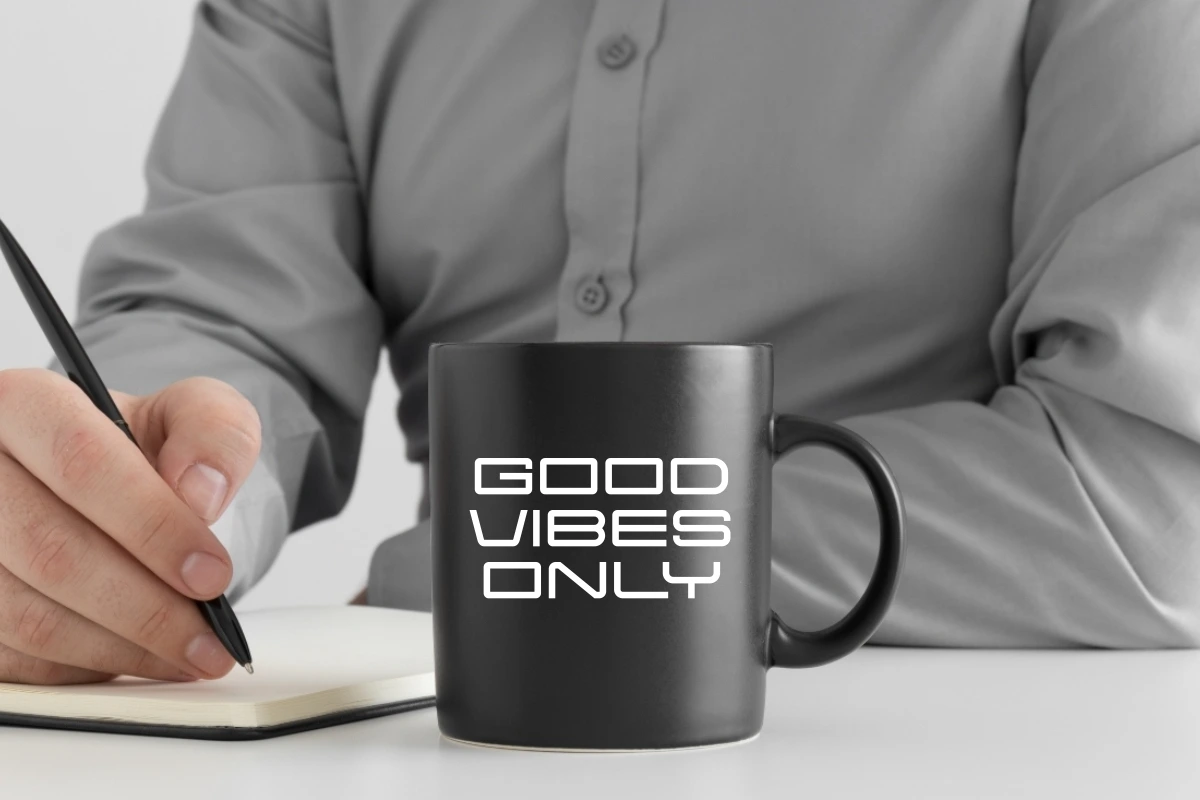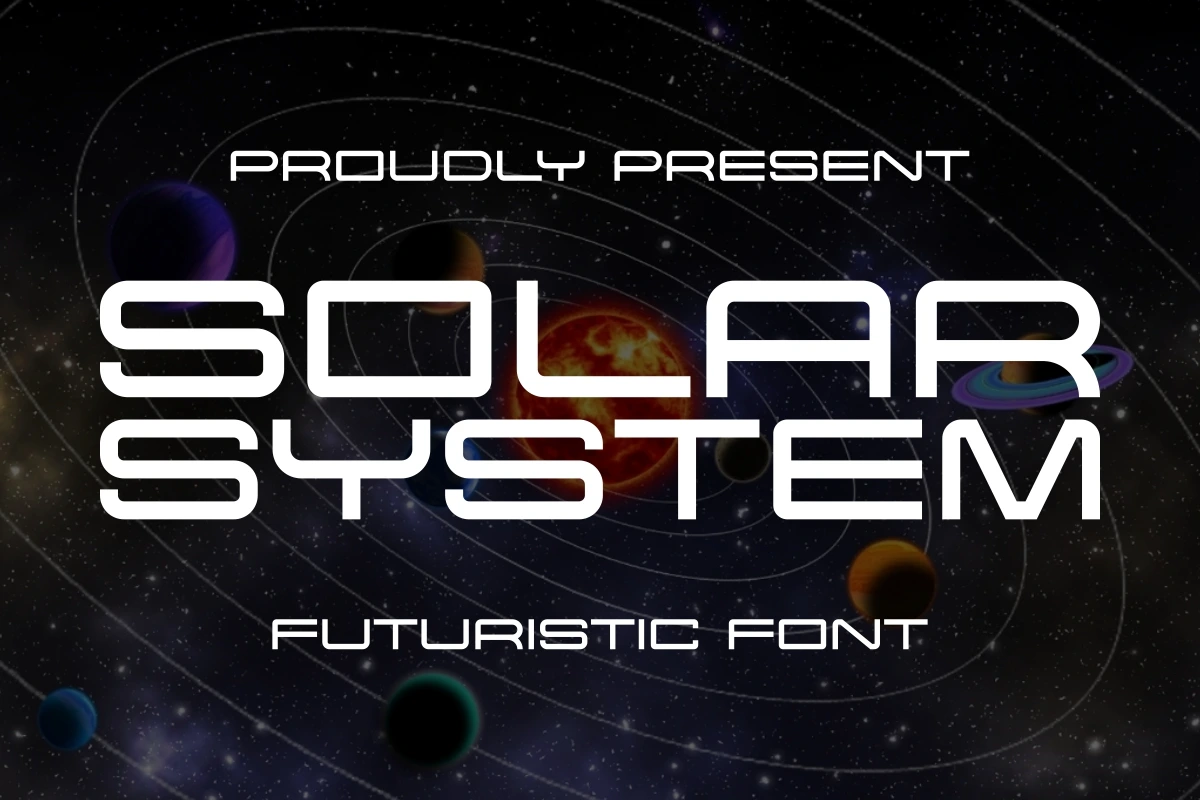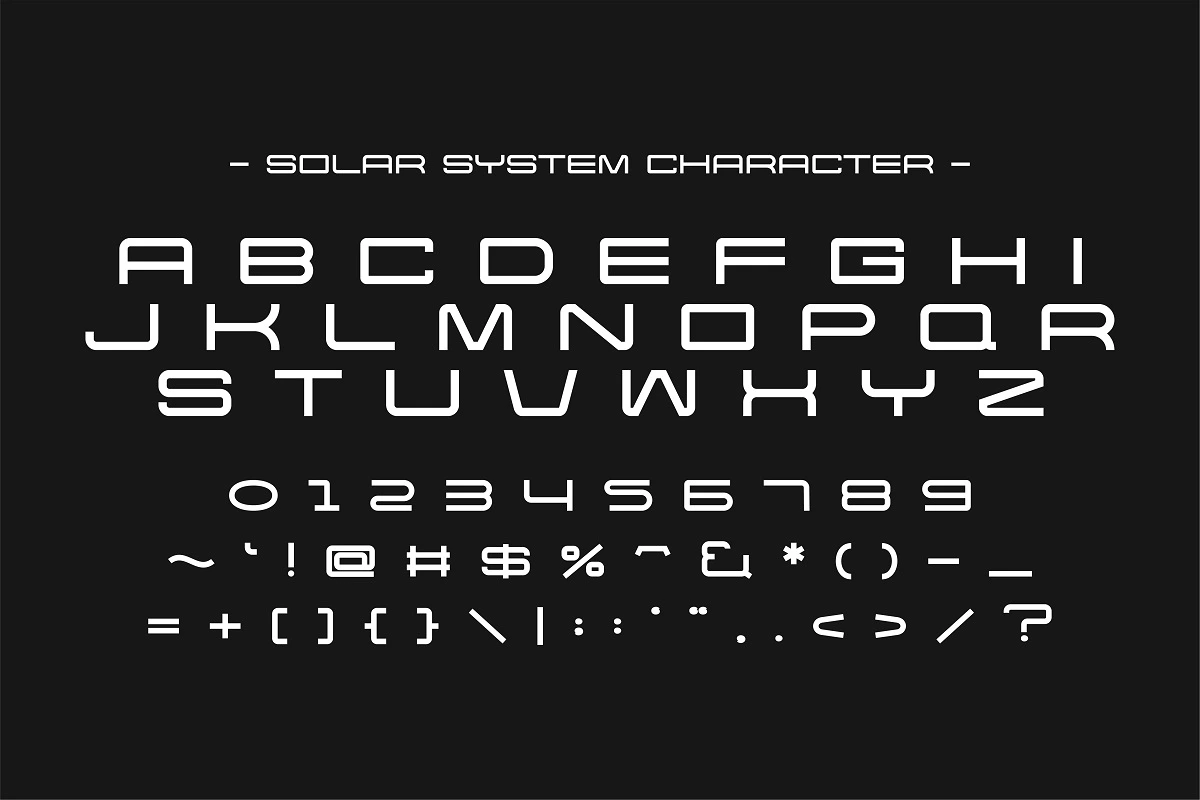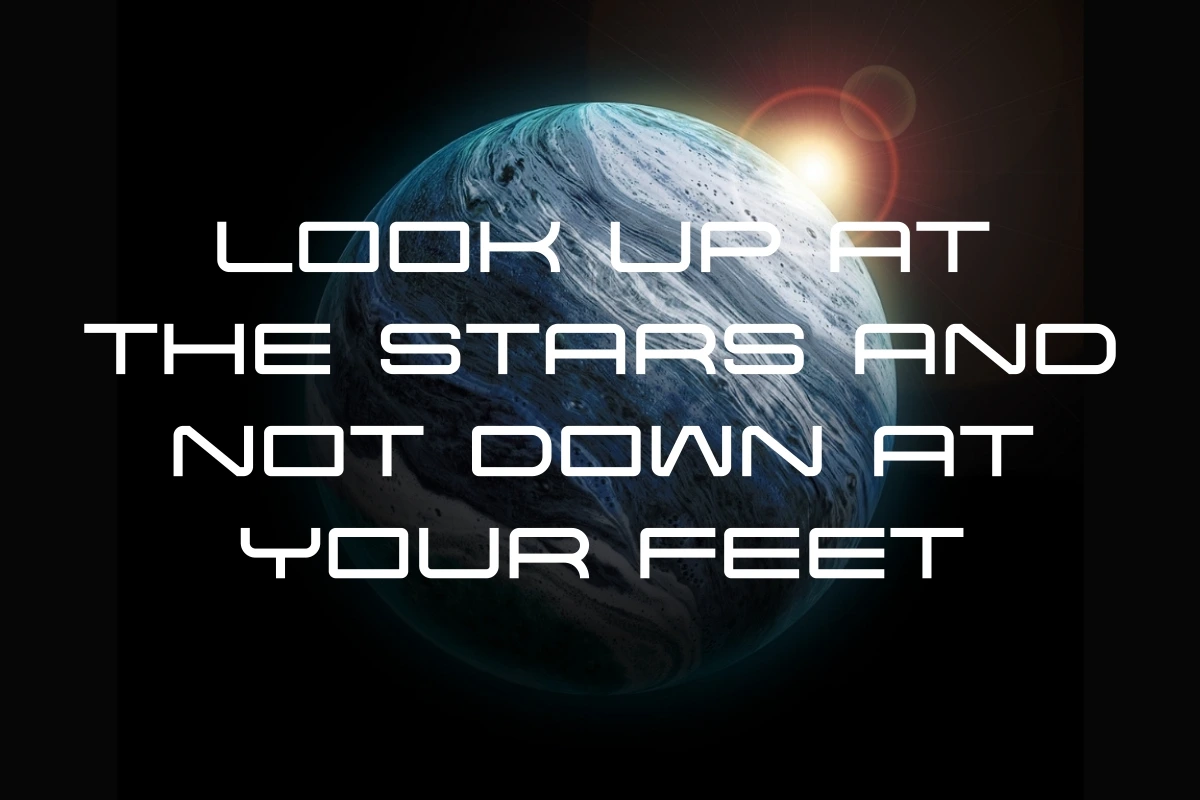
Solar System - Futuristic Font
last off with SOLAR SYSTEM, the ultimate futuristic display font for your next cosmic project! This bold, sleek, and modern typeface features sharp, commanding lines and a clean geometric structure, perfectly engineered for maximum impact. Ideal for sci-fi movie titles, gaming and eSports branding, high-tech product labels, minimalist logos, and any design needing a powerful, forward-thinking aesthetic. Elevate your portfolio with a space-themed typeface that embodies the future of design.